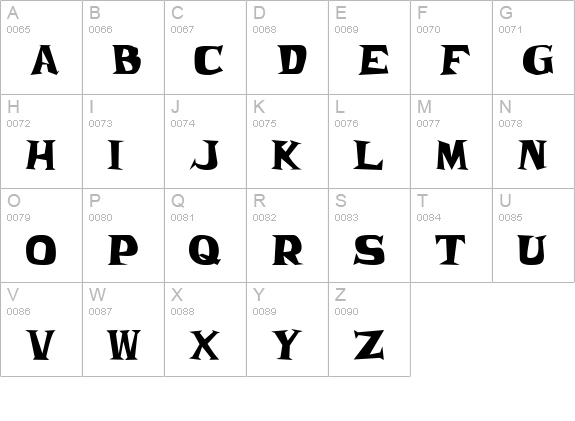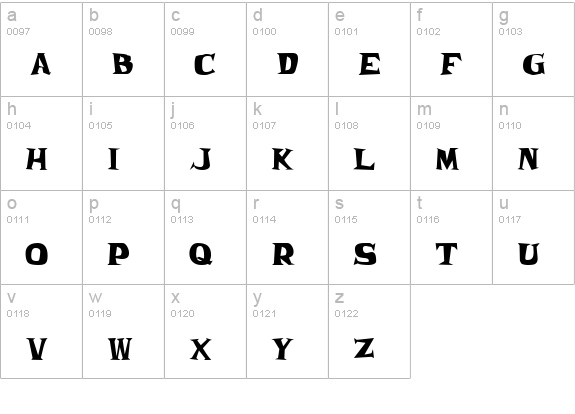
Frantic JL Font Details
Frantic JL font is a dynamic and energetic typeface that exudes a sense of urgency and excitement. Its bold, yet playful design makes it perfect for grabbing attention and adding a touch of flair to any project. The sharp angles and unique shapes give this font a modern and edgy look that is sure to make a statement. Best of all, Frantic JL font is available for free download at FontsMarket.com. Whether you're working on a poster, logo, website, or any other creative project, this font will help you stand out and leave a lasting impression. Embrace the frantic energy of this font and let your creativity run wild with Frantic JL.